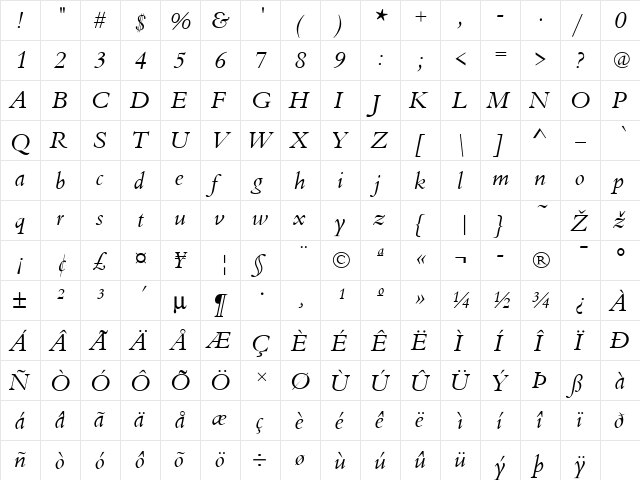
BemtuT Italic
Design Context for BemtuT Typeface
BemtuT offers clean, dependable letterforms without strong stylistic allegiance, making it a practical choice for designers who need flexibility. The slanted form adds forward momentum and visual energy.
Pro Tip: Try BemtuT for annotation and caption copy alongside an upright companion — the contrast in angle creates a dynamic but ordered typographic system.